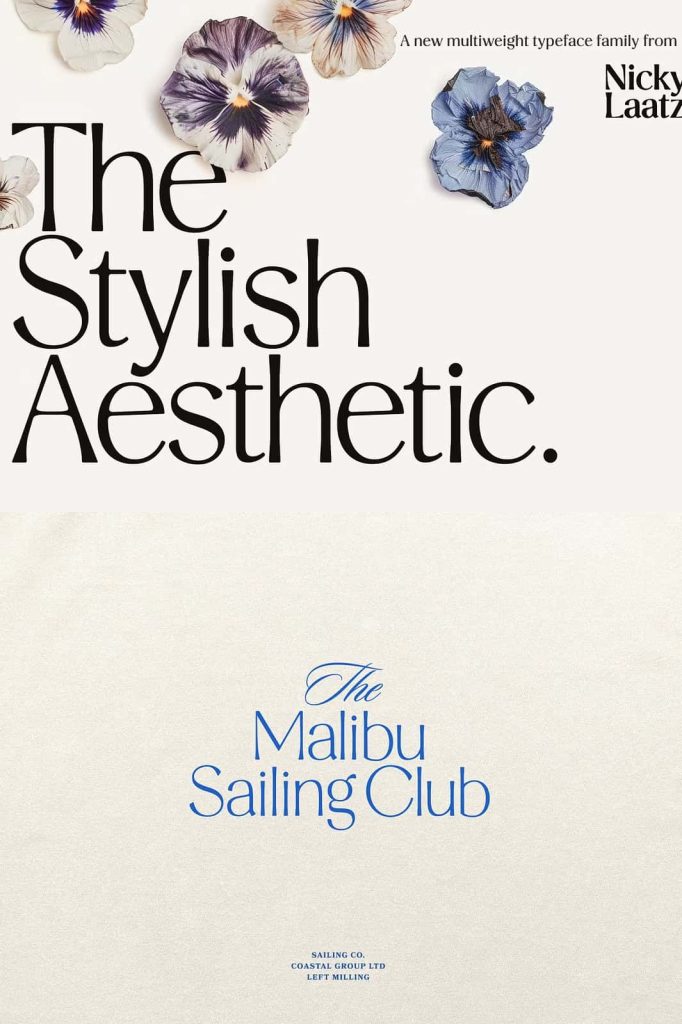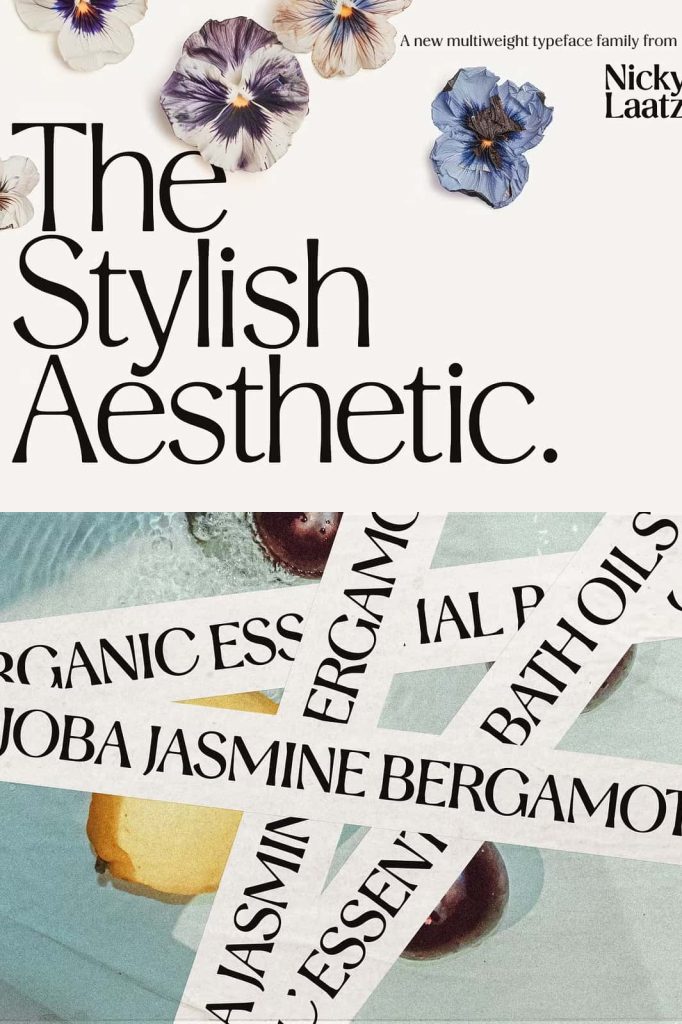
Stylish Aesthetic Font – A Chic, Bold, and Modern Typeface for Elegant Design
Stylish Aesthetic Font is a modern, multi-weight sans-serif typeface that commands attention with its sleek lines, refined contrast, and contemporary charm. Designed to make an impact, this typeface brings together smooth curves and angular forms in perfect harmony, creating a bold statement for any design project. Whether you’re working on branding, editorial layouts, or luxury packaging, Stylish Aesthetic adds a high-fashion touch that instantly elevates your visual identity.
Redefining Modern Elegance Through Typography
Typography is the voice of design, and Stylish Aesthetic speaks with clarity, confidence, and sophistication. Every detail of this font was meticulously crafted to embody the perfect balance between minimalism and style. The strong geometric foundation ensures structure and precision, while the subtle curves add an element of softness and warmth. The result is a typeface that feels both powerful and approachable—ideal for brands that value elegance and creativity.
What makes Stylish Aesthetic stand out is its seamless fusion of modern trends with timeless design principles. It doesn’t try to imitate; it defines. The contrast between its smooth and angular forms creates a rhythm that captures the viewer’s attention while maintaining readability and grace. This harmony makes it suitable for a wide range of design applications—from cutting-edge digital media to high-end print campaigns.
A Typeface with Multiple Weights for Maximum Flexibility
Stylish Aesthetic Font comes as a multi-weight type family, offering designers the flexibility to experiment and find the perfect tone for each project. Whether you need a light, airy look or a bold, commanding presence, this typeface delivers the right weight for every visual context. The clean structure ensures that every letter maintains consistency, while the varying thicknesses give you creative freedom to layer, emphasize, and contrast elements effectively.
The versatility of Stylish Aesthetic makes it an essential tool for modern creatives. Use the lighter weights for minimalist web designs or lifestyle branding where elegance is key, and the bolder versions for strong headlines, luxury logos, and impactful advertising materials. Each weight complements the other, allowing for cohesive visual storytelling that feels balanced and refined.
Perfect Harmony of Smooth and Angular Forms
The defining characteristic of Stylish Aesthetic lies in its structural balance. The font combines the best of both worlds: the fluidity of organic shapes and the precision of geometric design. Its smooth curves evoke a sense of sophistication, while the sharp angular edges add a modern, assertive energy. This dynamic combination gives your designs a distinctive personality—sleek, confident, and undeniably stylish.
From editorial titles to luxury branding, this font’s form and flow adapt effortlessly. It looks equally stunning in monochrome minimalist layouts and in vibrant, high-contrast compositions. No matter where it’s used, Stylish Aesthetic communicates confidence and class through every letterform.
Ideal for Modern Branding and Design Projects
Stylish Aesthetic Font was created for those who want their work to exude sophistication. Its clean yet daring appearance makes it perfect for fashion branding, editorial design, product packaging, lifestyle websites, and advertising campaigns. The typeface captures the visual essence of modern luxury, blending subtlety and impact in a way that enhances your overall design narrative.
For brands looking to communicate a sense of exclusivity, Stylish Aesthetic delivers a refined identity that resonates across all touchpoints. Its sleek geometry makes it suitable for minimalist logos, while its multi-weight options allow for elegant text hierarchies in print and web design. Whether used for bold headlines or refined body copy, it retains its distinct visual presence and sophistication.
Why Designers Choose Stylish Aesthetic
- Multi-weight family offering maximum design flexibility
- High-contrast sans-serif with both smooth and angular details
- Perfect for fashion, luxury, and editorial projects
- Combines elegance with modern minimalism
- Exceptional readability across print and digital platforms
Designers love Stylish Aesthetic for its unique personality—strong yet graceful, minimal yet memorable. It’s the kind of typeface that can define a brand’s visual identity or elevate a simple design into a sophisticated masterpiece. Every curve and angle was crafted with intention, giving it a premium feel that aligns perfectly with today’s high-end design trends.
Tips for Using Stylish Aesthetic in Your Projects
To maximize the impact of Stylish Aesthetic Font, consider using it in layouts that emphasize contrast and negative space. The font’s sleek lines thrive in minimalist compositions where it can stand out without distraction. Pair it with simple color palettes—black, white, or muted tones—to create a clean, editorial aesthetic. For a more dynamic visual statement, combine bold weights for headlines with lighter styles for supporting text.
Conclusion: Redefine Modern Style with Stylish Aesthetic Font
Stylish Aesthetic Font is a celebration of modern design—bold, refined, and endlessly adaptable. Its combination of smooth curves and angular geometry creates a striking visual contrast that draws attention and communicates sophistication. With multiple weights and a flawless balance of form and function, it’s the perfect choice for designers who want to make a bold yet elegant statement. Bring your creative vision to life with Stylish Aesthetic and let your designs embody the future of contemporary elegance.